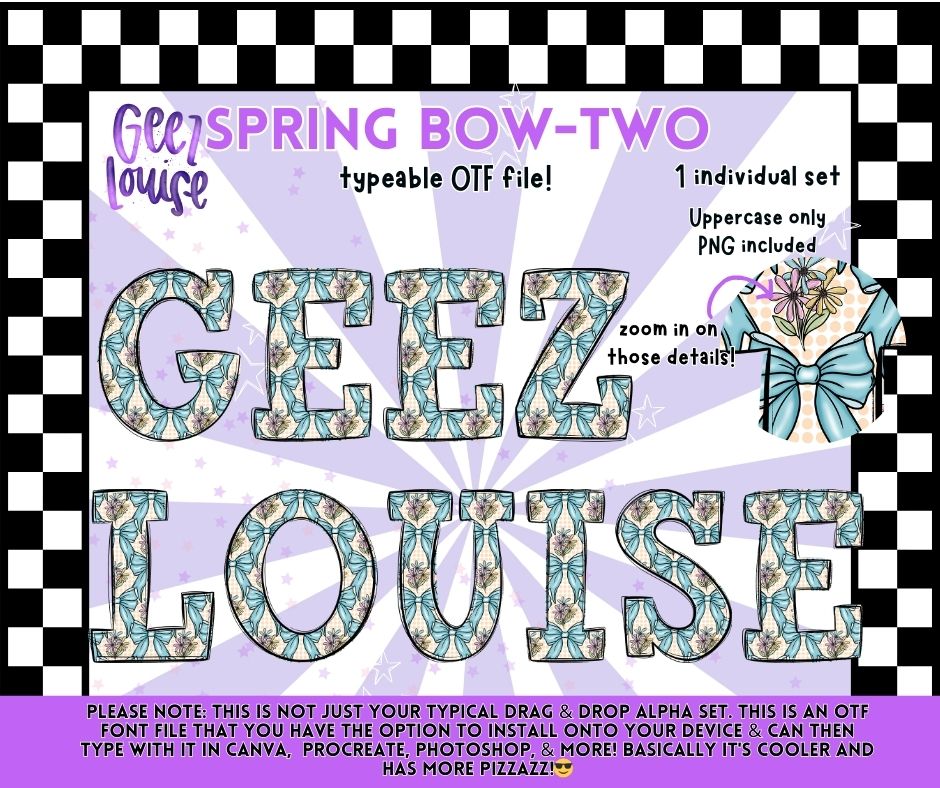
Spring Bow-Two OTF Font | Uppercase Typeface + PNG | Floral Bow Alphabet
Meet Spring Bow-Two — a soft floral alphabet with elegant bow details and a fresh spring color palette 🎀🌷
• Uppercase letters only
✔️ Soft details with a polished, professional finish